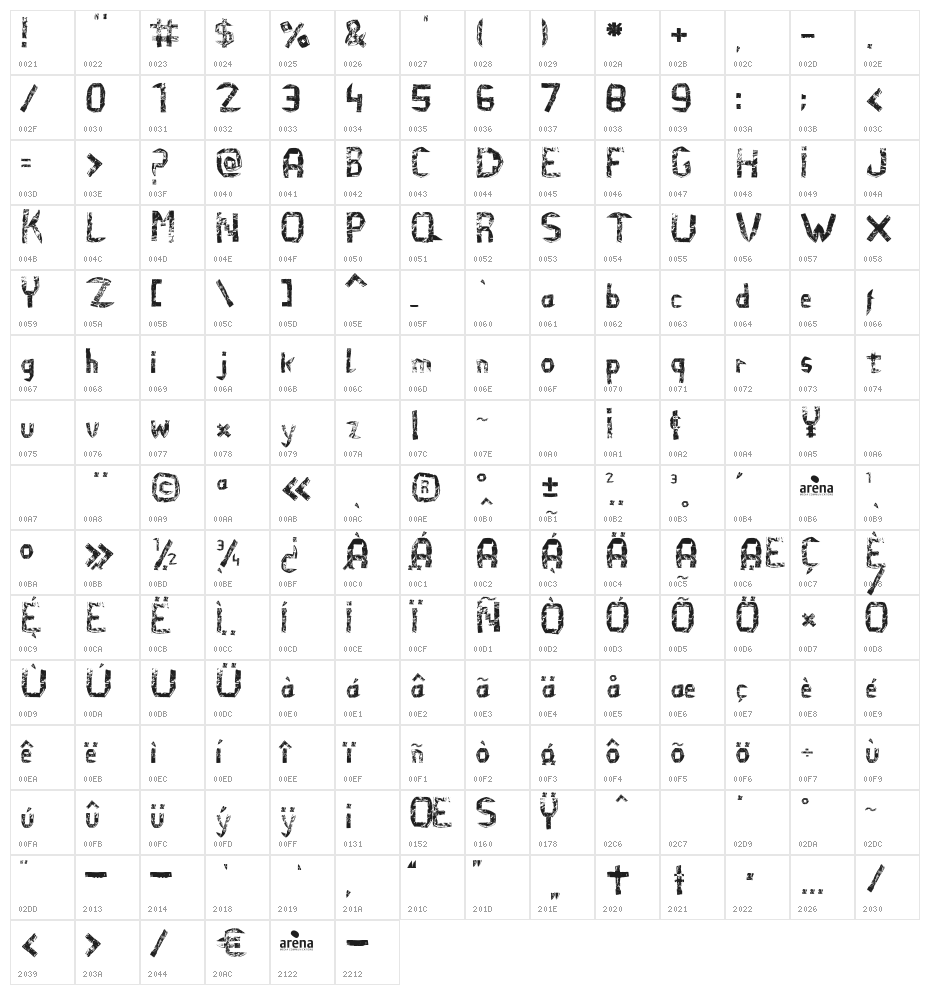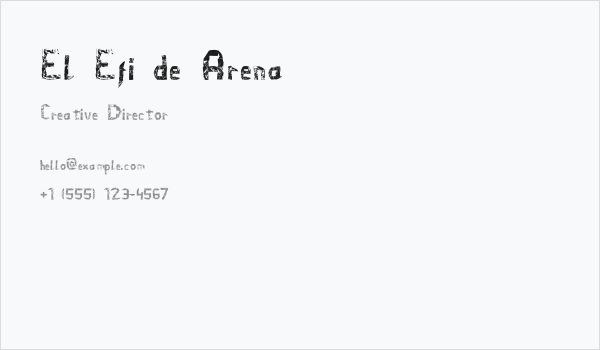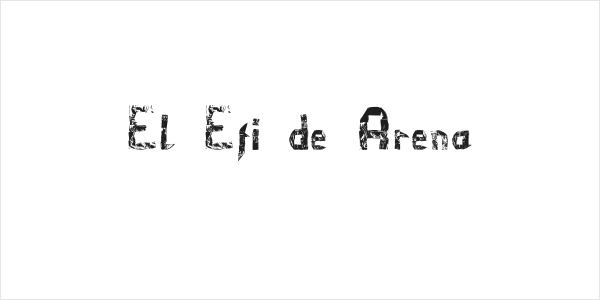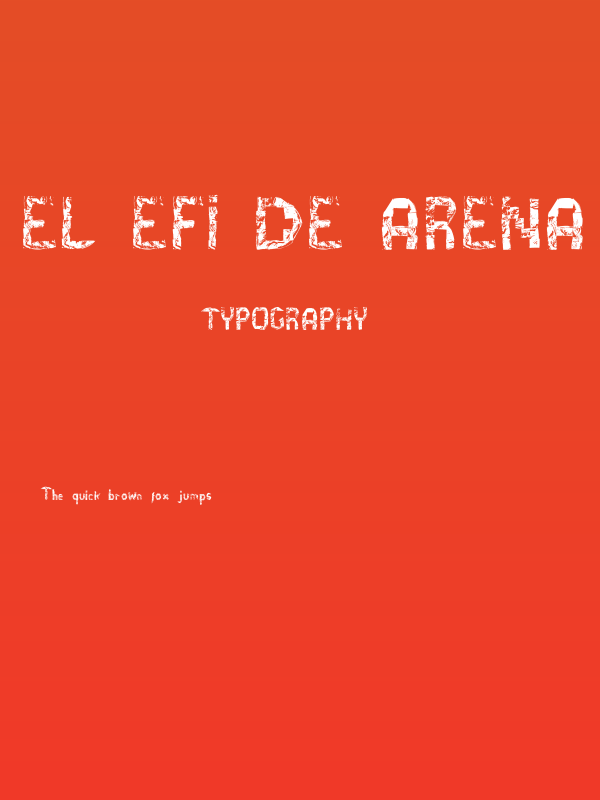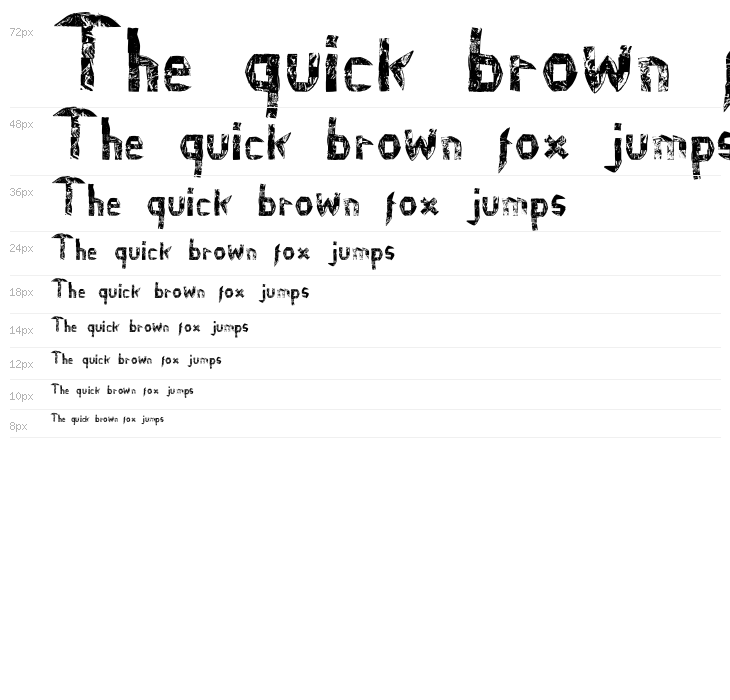
El Efi de Arena Font
El Efi de Arena Description
This font features a rugged, distressed appearance, reminiscent of weathered surfaces or eroded textures. Each character is uniquely textured, giving it a raw and gritty feel. The uppercase and lowercase letters maintain a consistent style, with jagged edges and irregular shapes that add to its rustic charm. Numbers and special characters follow the same design, ensuring a cohesive look across all text elements. This font's distinctive style makes it stand out, perfect for projects that require a bold, unconventional aesthetic.
| Proposed Projects | Ideal for album covers, posters, branding for outdoor or adventure-themed products, and any design needing a bold, gritty aesthetic. |